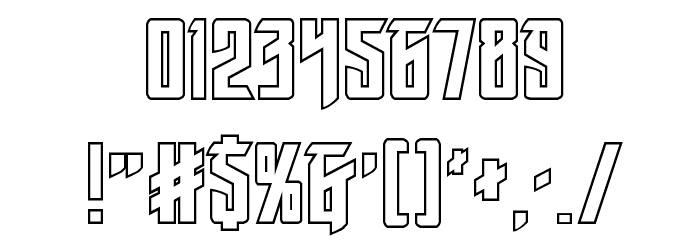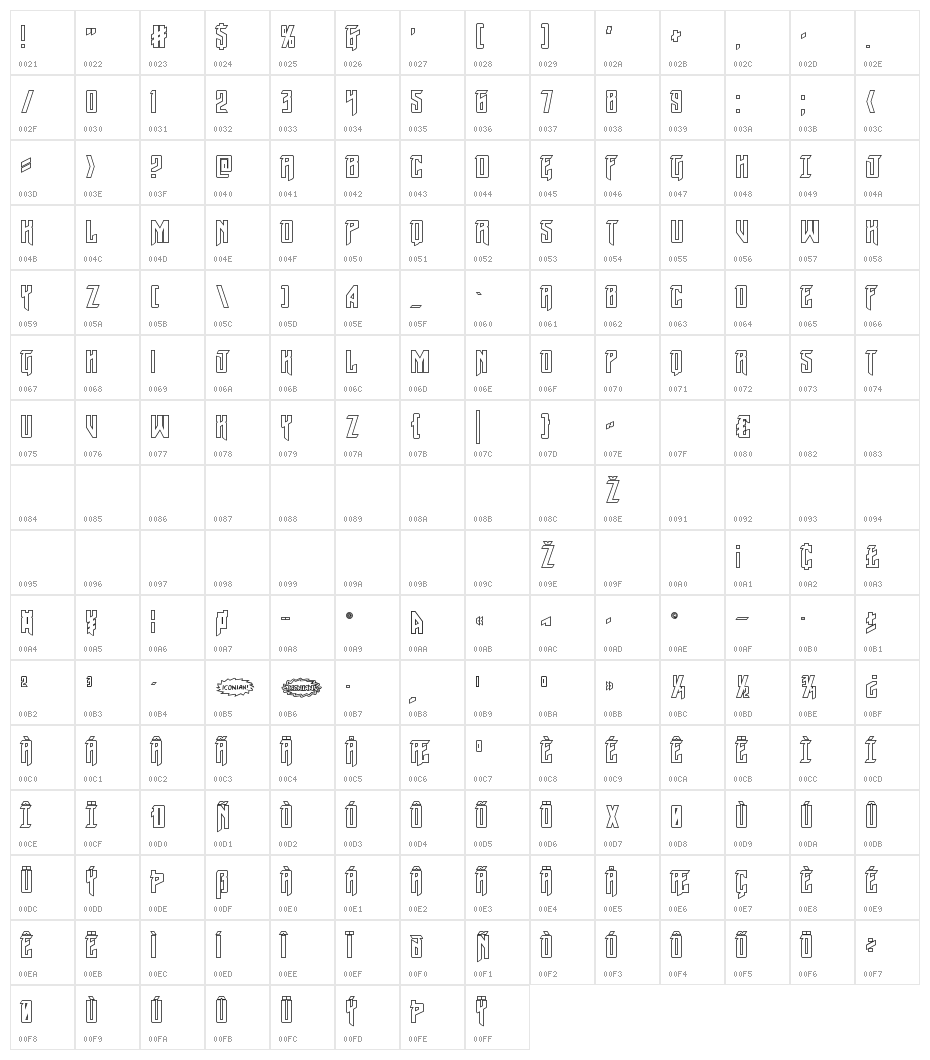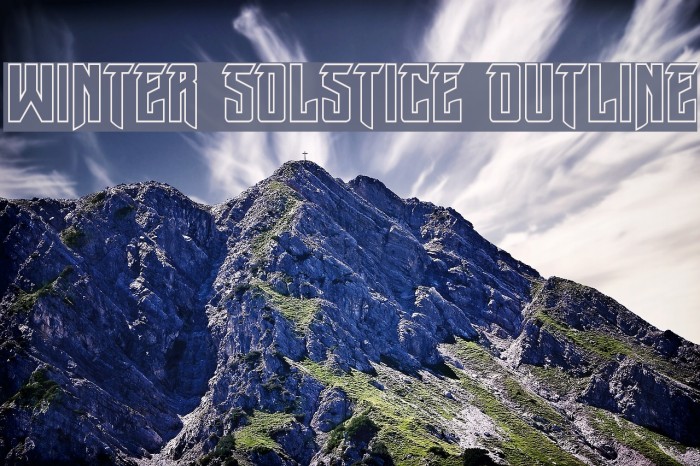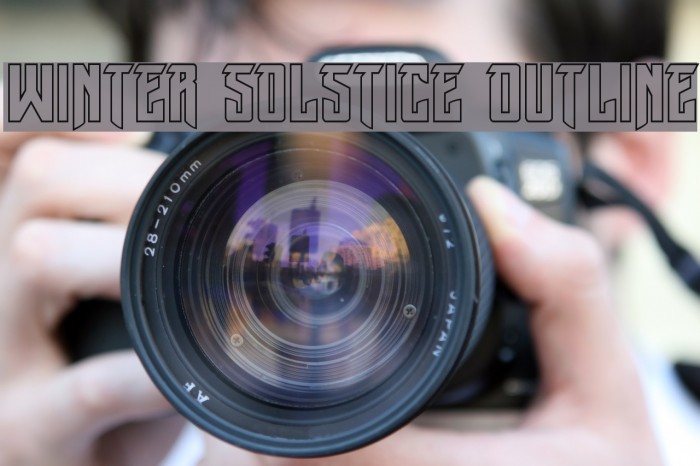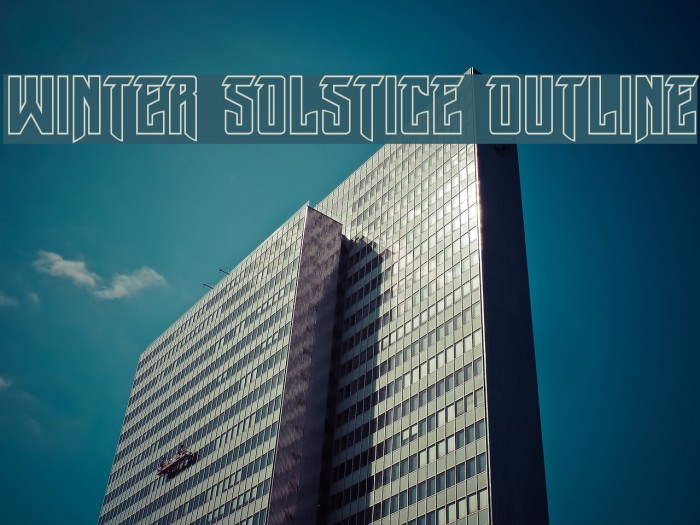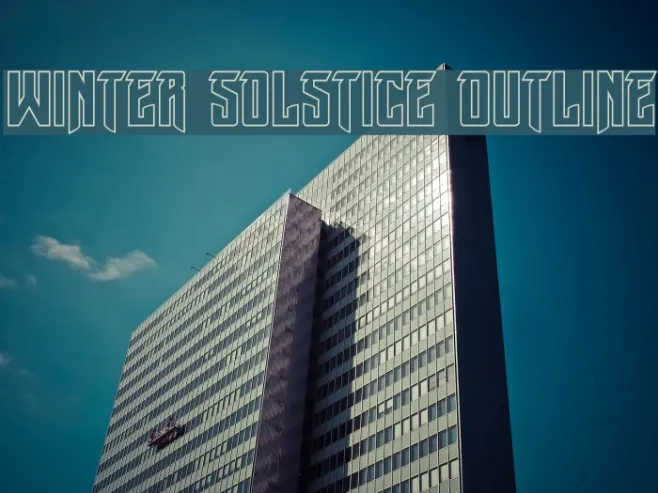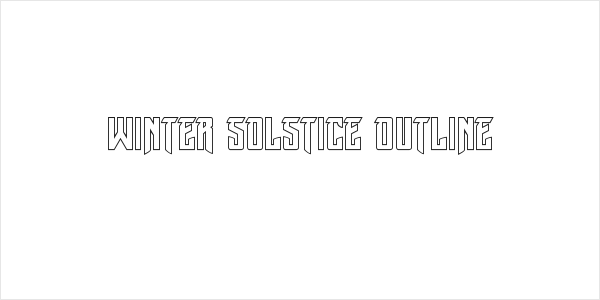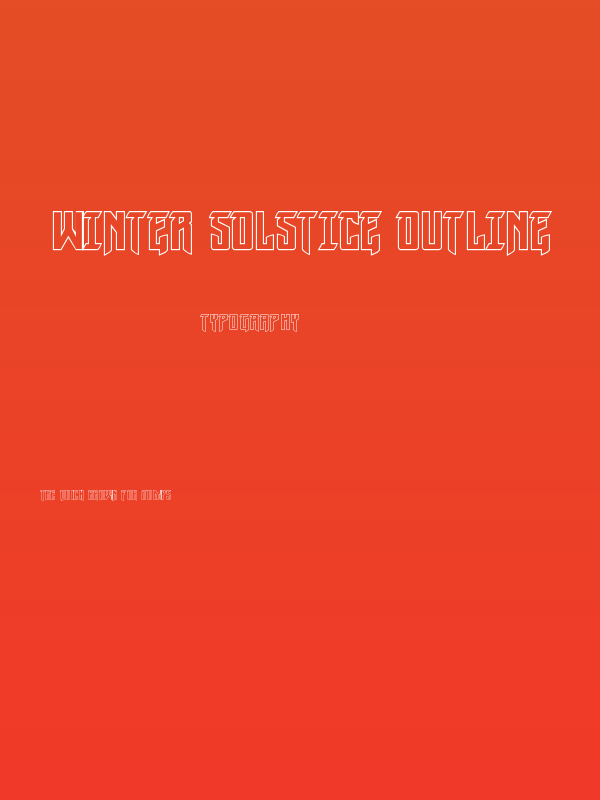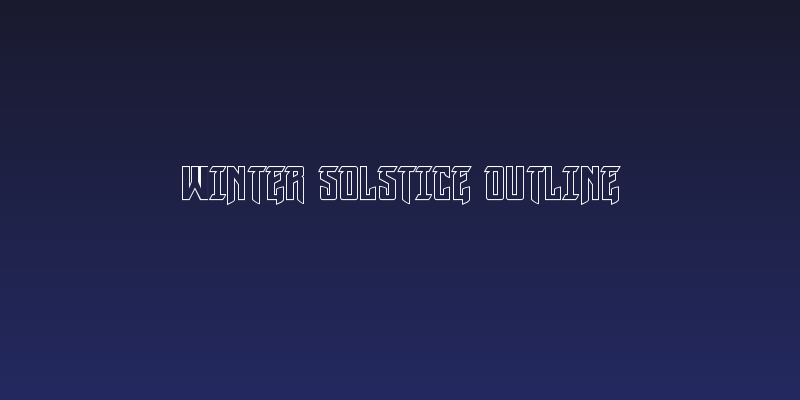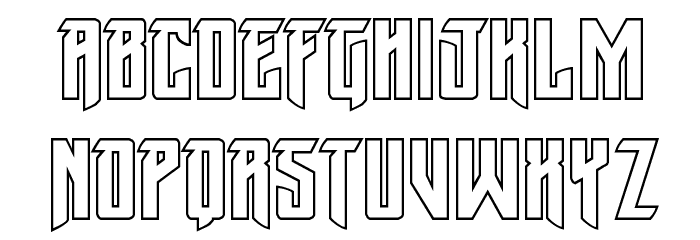
Winter Solstice Outline Font
Winter Solstice Outline Description
This font features a bold, angular design with sharp edges and a distinct outline style. The characters are uppercase and maintain a consistent geometric form, giving them a futuristic and edgy appearance. The outlines are uniform, creating a hollow effect that adds depth and dimension. This style is reminiscent of retro-futuristic or sci-fi themes, making it ideal for projects that require a strong visual impact. The numbers and special characters follow the same design principles, ensuring a cohesive look across all elements.
| Proposed Projects | Ideal for sci-fi themed posters, video game titles, and futuristic branding. |